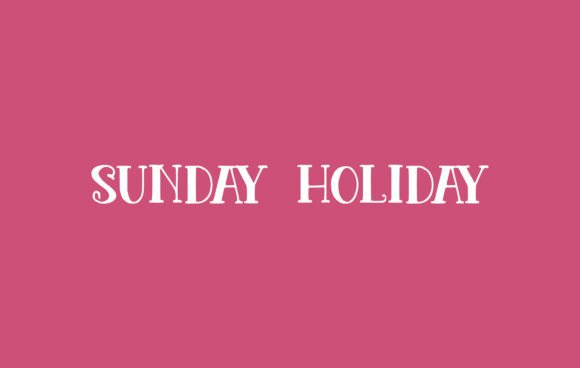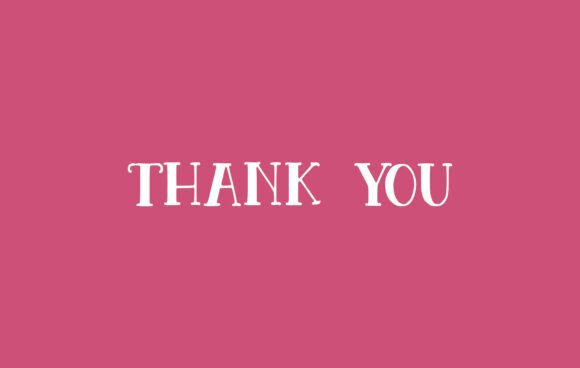
Blessing Font: Elevate Your Designs with a Romantic Handwritten Touch
In the world of typography, a well-crafted font can make all the difference in bringing your creative ideas to life. If you’re a designer, craft, or simply someone who appreciates the art of beautiful writing, then you’re in luck. Introducing Blessing Font, an authentic handwritten font with a romantic touch that’s sure to capture your heart. In this article, we’ll dive into the features and benefits of Blessing Font, and explore how it can elevate your designs to new heights.
A True Favorite Among Designers
Blessing Font is an expertly designed font that’s been crafted with love and care to provide a unique and captivating aesthetic. Its authentic handwritten style gives it a personal and intimate feel, making it perfect for a wide range of design applications. Whether you’re working on a magazine headline, social media post, branding campaign, or wedding invitation, Blessing Font is sure to impress.
Legible and Versatile
One of the standout features of Blessing Font is its exceptional legibility. This font is designed to be easy to read, making it perfect for both title and body text. Its clear and concise style ensures that your message gets across with clarity and impact, allowing your audience to focus on the content rather than struggling to decipher the text.
In addition to its legibility, Blessing Font is also incredibly versatile. Its romantic and whimsical style makes it perfect for a wide range of design applications, from elegant wedding invitations to social media posts and branding campaigns. Whether you’re looking to add a touch of sophistication or a dash of playfulness to your design, Blessing Font has got you covered.
Blessing Font is a dream come true for designers, crafters, and creatives of all kinds. Its unique and captivating style makes it perfect for a wide range of projects, including:
- Magazine headlines and articles
- Branding campaigns and logos
- Cards and gift tags
Why Choose Blessing Font?
So why choose Blessing Font over other fonts on the market? Here are just a few reasons why this font stands out:
- Unique and authentic style: Blessing Font has a one-of-a-kind, handwritten style that’s sure to capture your audience’s attention.
- Exceptional legibility: This font is designed to be easy to read, making it perfect for both title and body text.
- Versatility: Blessing Font can be used for a wide range of design applications, from elegant wedding invitations to social media posts and branding campaigns.
- Authentic handwritten font with a romantic touch
- Exceptional legibility
- Versatile and perfect for a wide range of design applications